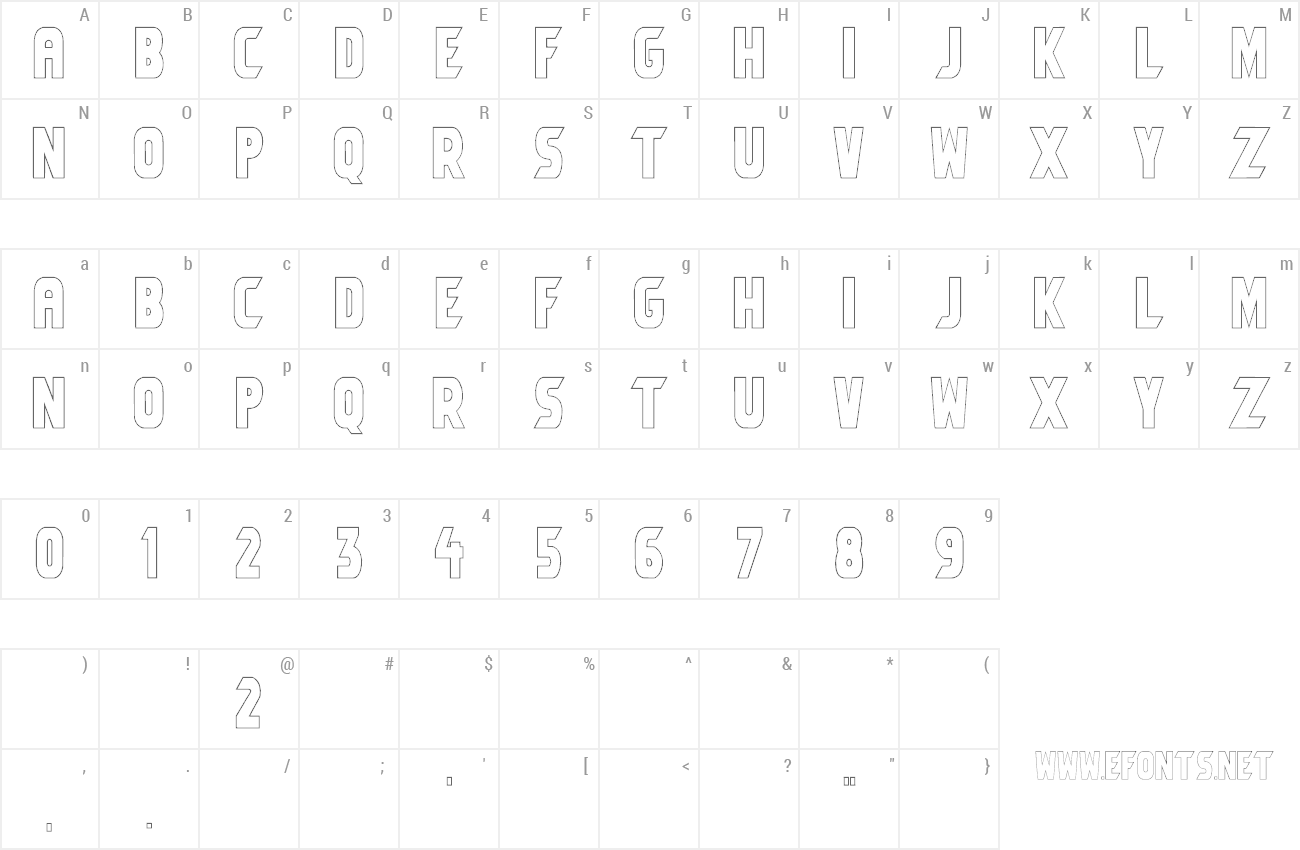
| Font name: | Umbro |
| Author: | Jayson Gabler |
| Note by Jayson Gabler | |
| This font is used on the back of the shirts of some soccer teams in Spain, e.g. Celta Vigo. |